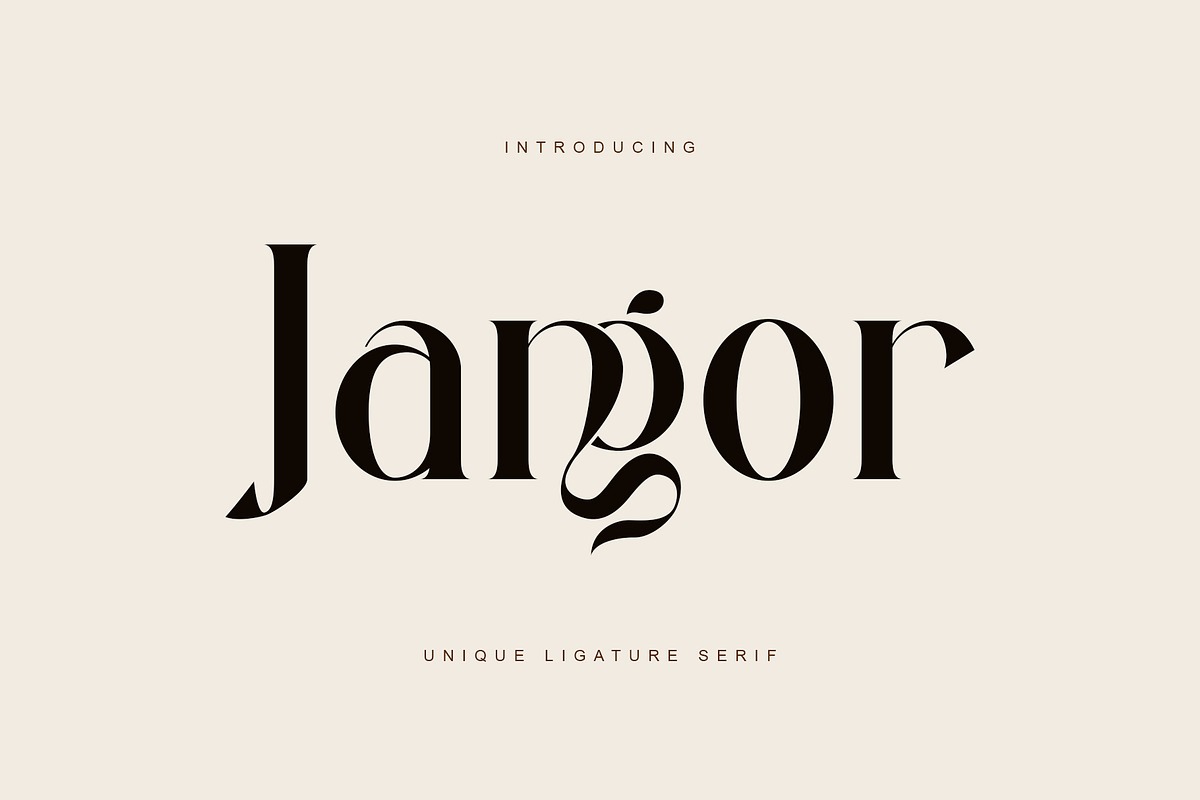
Jangor Font
Jangor Font is a clean and thoughtfully built typeface that works seamlessly for both professional branding and everyday creative uses. Jegan is a elegant and classy serif typeface – This font is both modern and nostalgic and works great for logos, magazine, social media. Already matched up and ready to be used together for your next design! For those of you who are needing a touch of elegant, stylish, classy, chic and modernity for your designs, this font was created for you!
Jegan was built with OpenType features and includes ligatures, numbers, punctuation, and it also supports other languages.